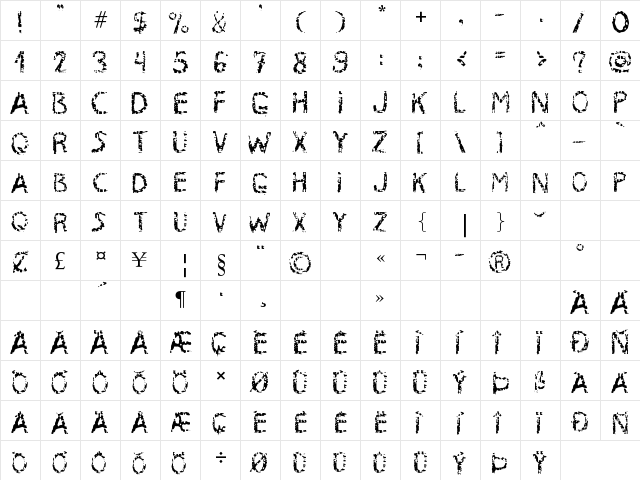
MB-RustyIron Regular
| Designer | ModBlackmoon |
Design Context for MB-RustyIron Typeface
MB-RustyIron is a composed and adaptable typeface that performs quietly and consistently across a wide range of design contexts.